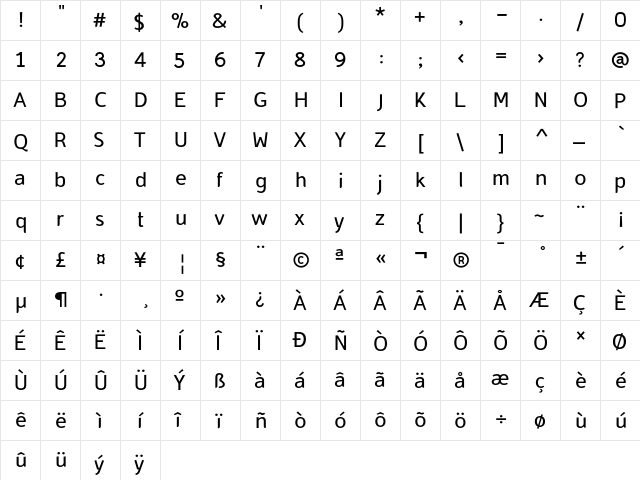
Domestos98 Normal Font Preview
Domestos98 Normal
Domestos98 Normal Font Details
Design Context for Domestos98 Typeface
Domestos98 offers clean, dependable letterforms without strong stylistic allegiance, making it a practical choice for designers who need flexibility.
Pro Tip: Use Domestos98 in both headline and body roles to test its range before committing to a single application.